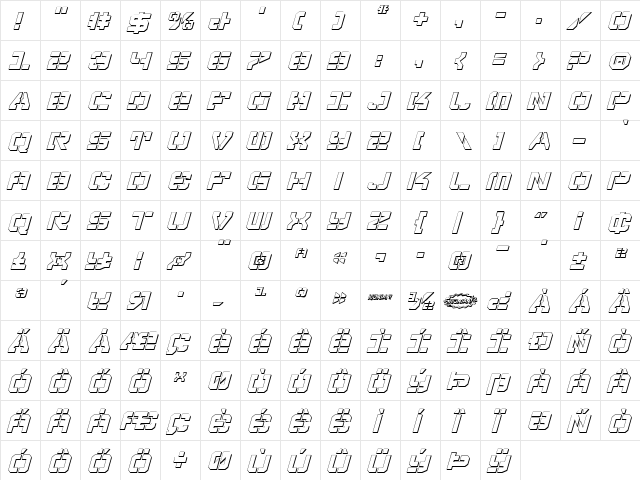
Vyper Shadow Italic Italic
Design Context for Vyper Shadow Italic Typeface
Vyper Shadow Italic is built around its visual character rather than neutral utility — its distinctive forms are designed to make an impression at display sizes. The dynamic lean of this cut emphasises speed and emphasis in any layout.
Font Pairing: Pair with a clean neutral sans-serif for body copy to let Vyper Shadow Italic's character lead without overwhelming the composition.
Pro Tip: Treat Vyper Shadow Italic as the centrepiece of your typographic hierarchy. One strong heading set in a decorative face can carry an entire layout.